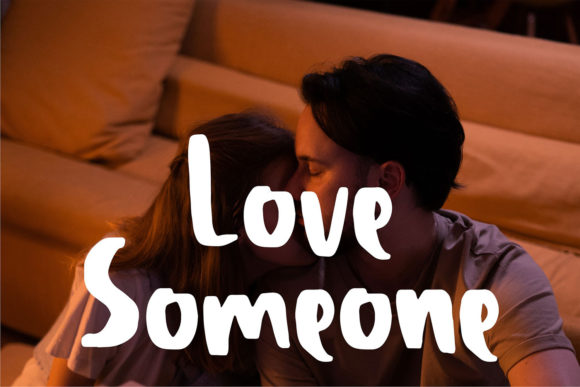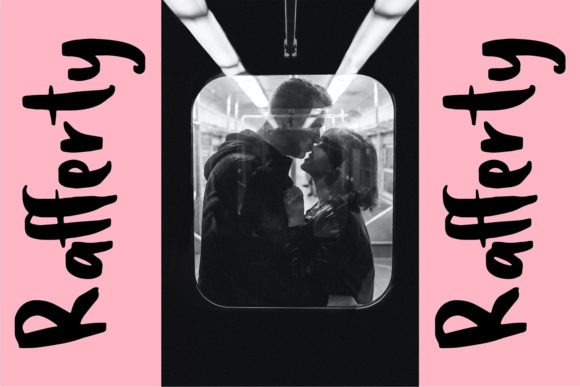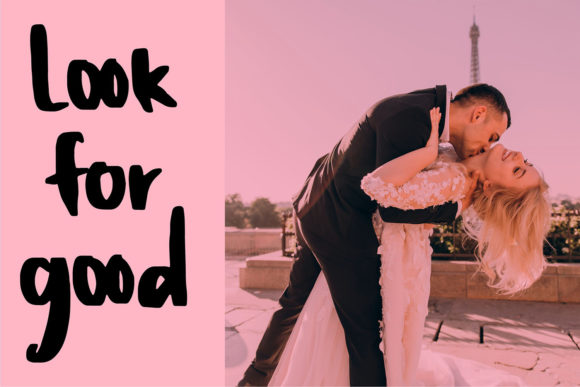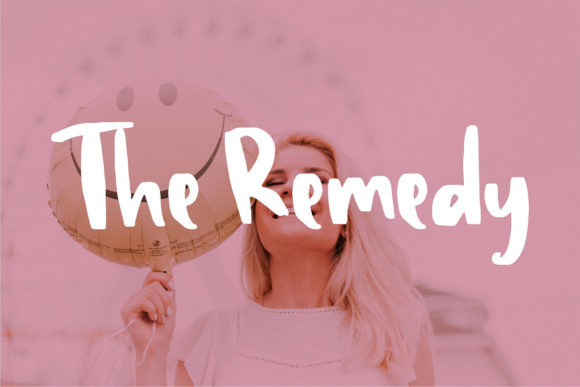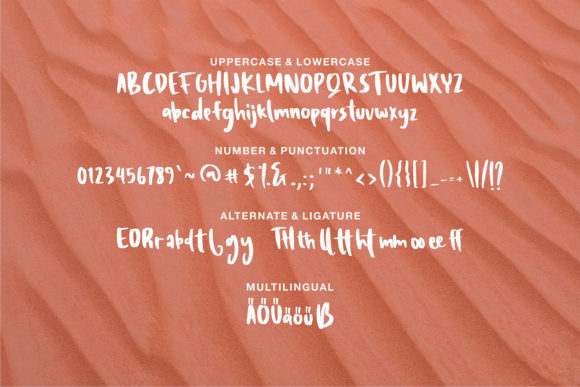
Bridger Font
About Bridger Font
Bridger is a casual and urban styled handwritten font. This font reads as strong, confident, and dynamic and can add tons of nostalgic character to your designs.